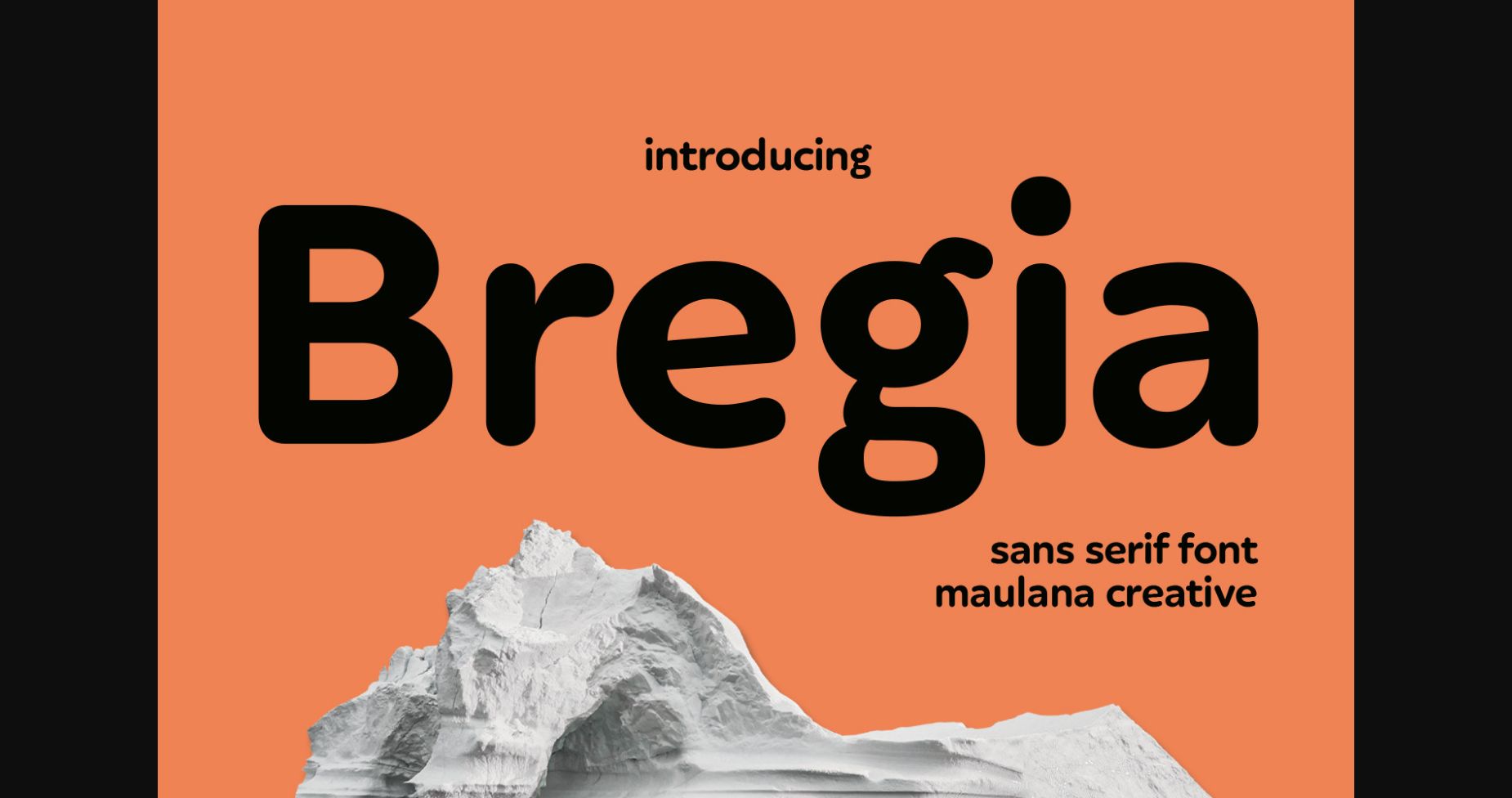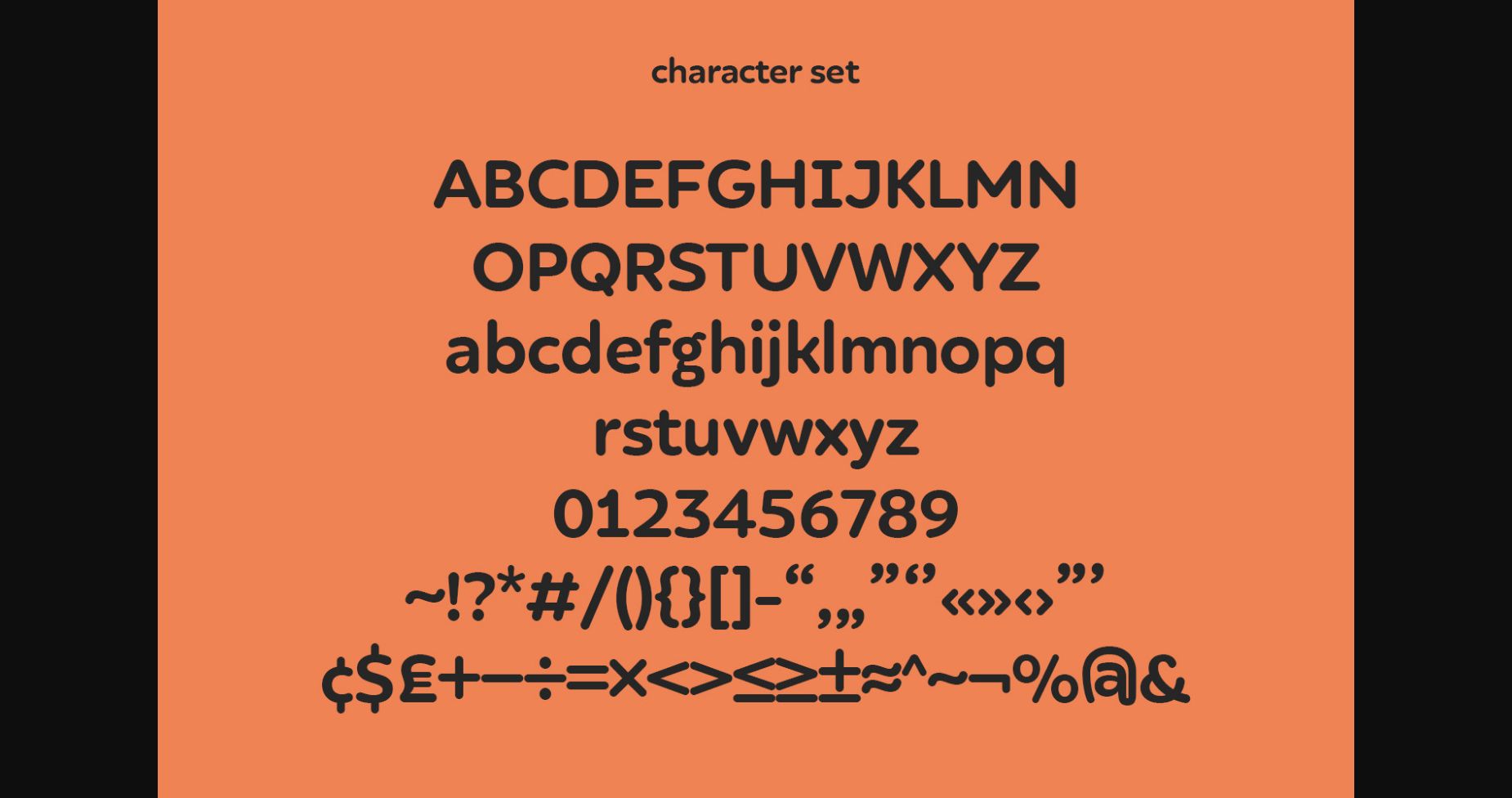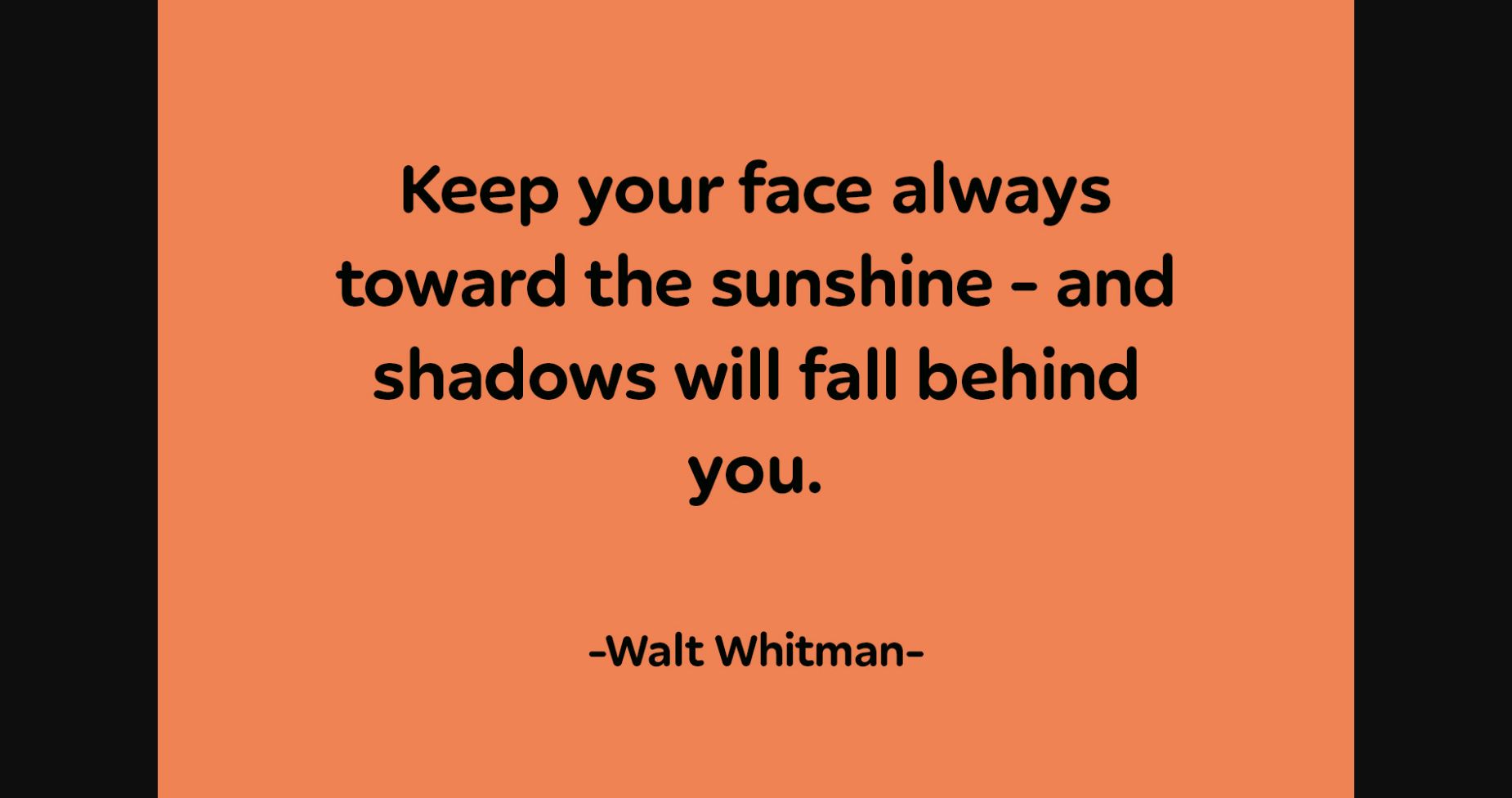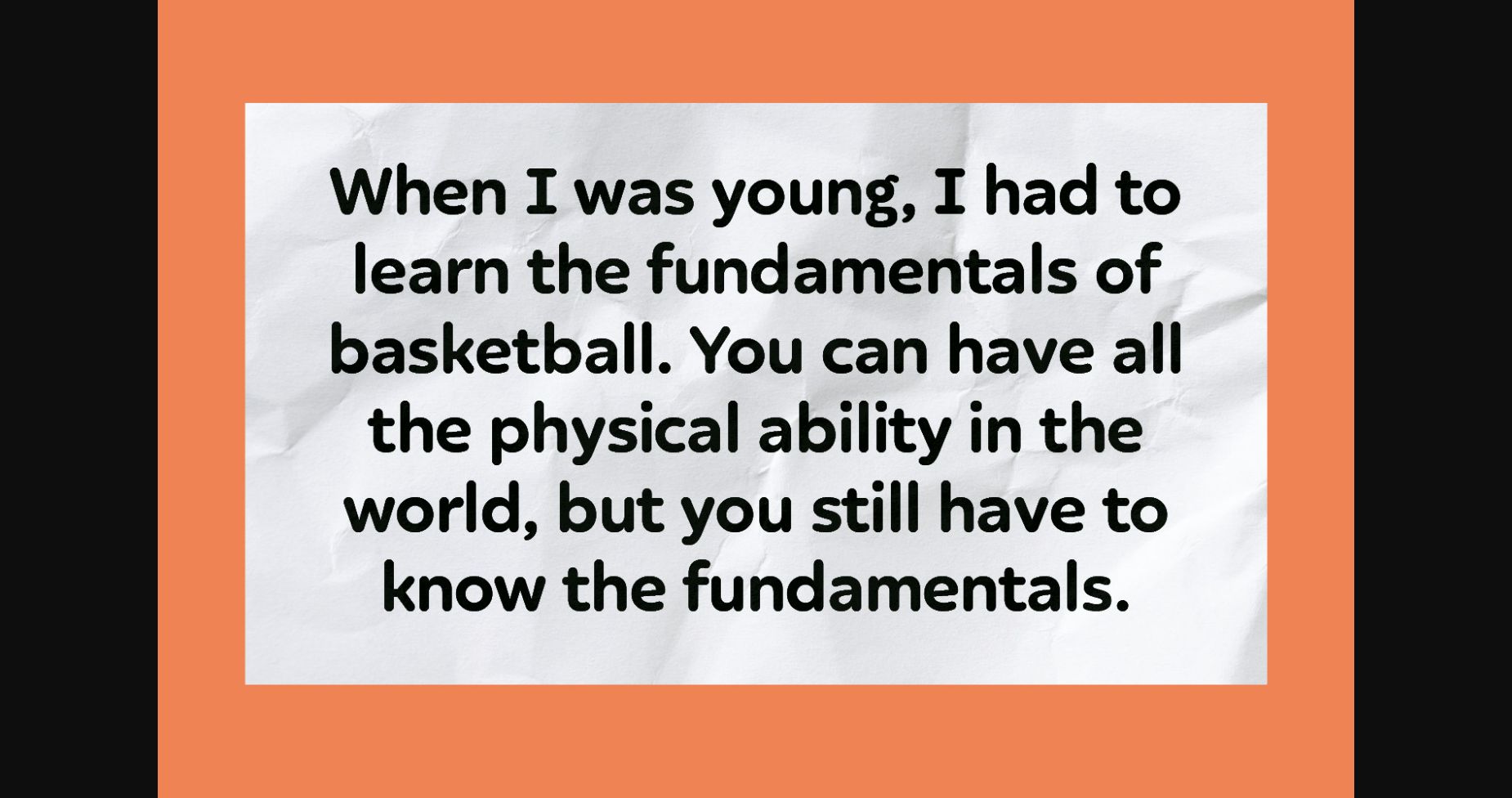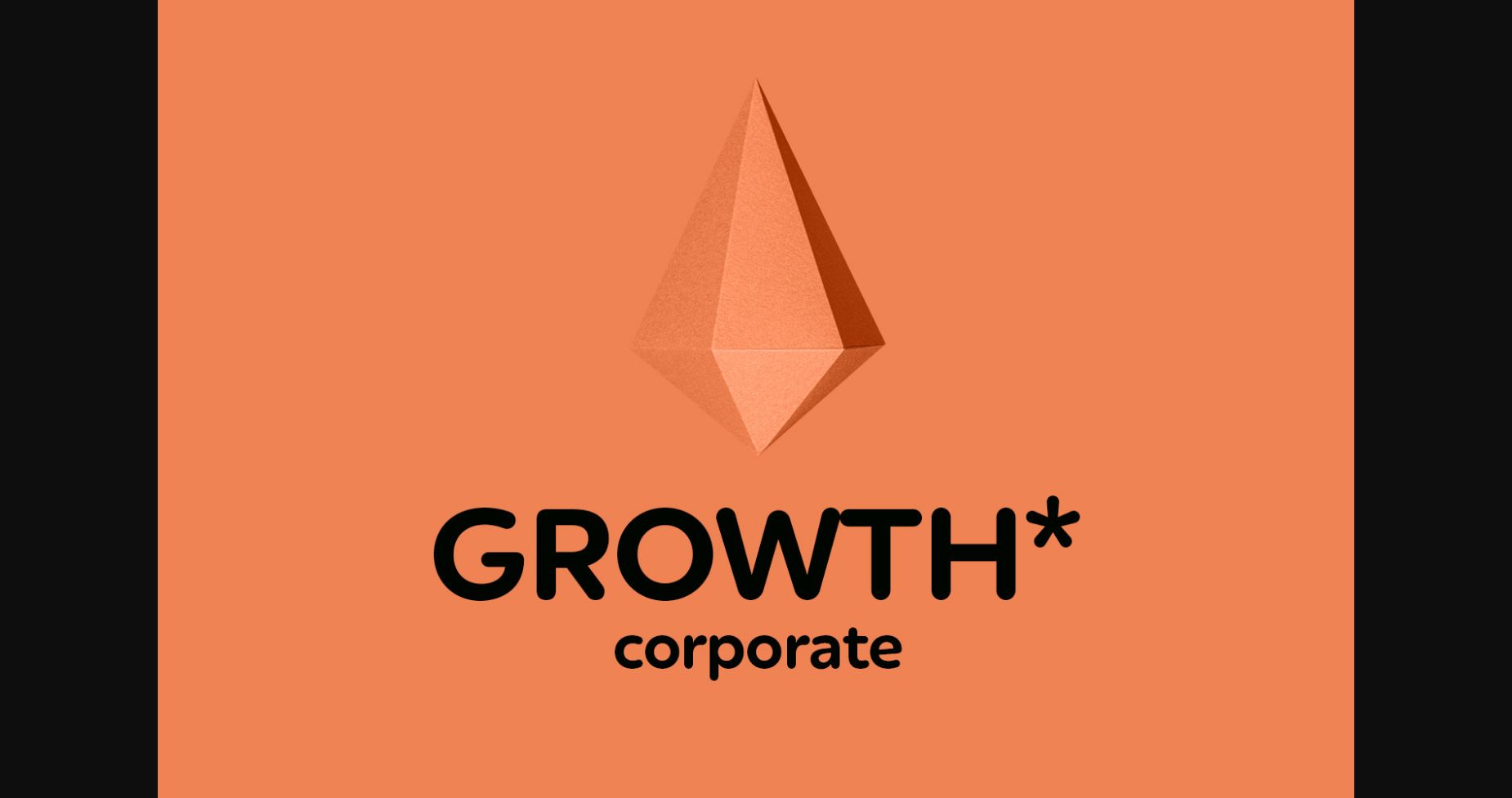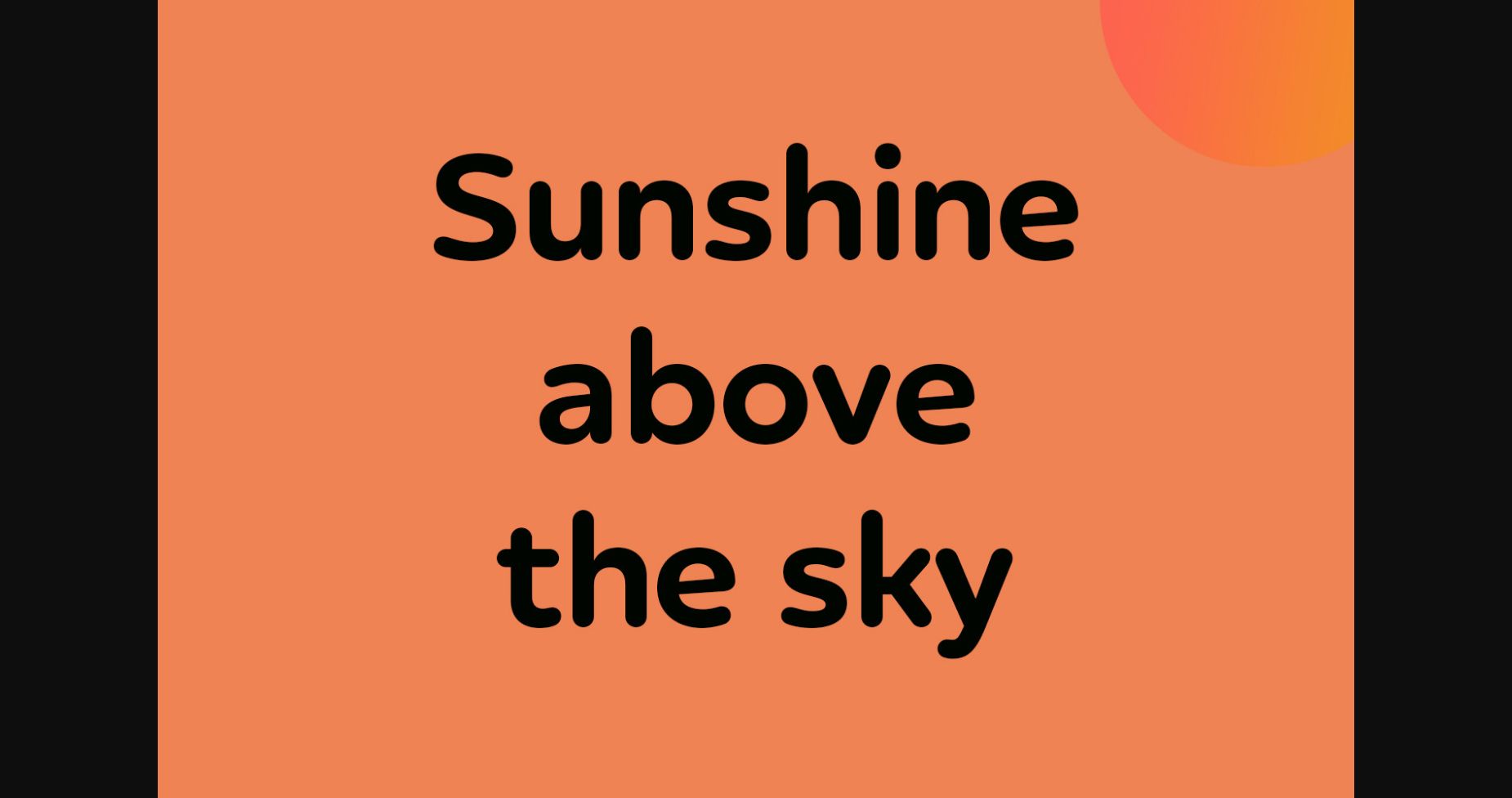
Bregia Font
About Bregia Font
Bregia is a modern and fun sans serif font. This font was particularly crafted for those who need a beautiful and refreshing look to their designs.